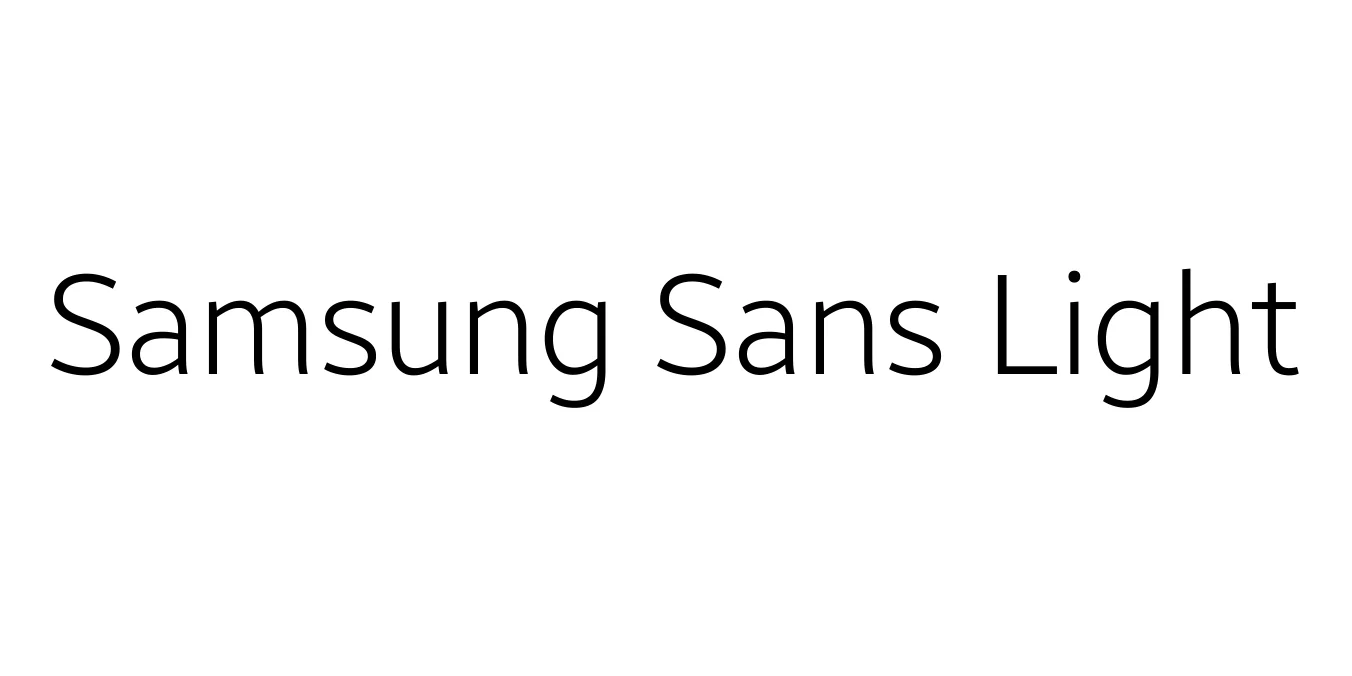
Samsung Sans Light
Designed by Samsung Design & Dalton Maag
Samsung Sans Light is a contemporary sans-serif typeface developed by Samsung in collaboration with the renowned type foundry Dalton Maag. Originally designed to create a cohesive brand identity across the Galaxy ecosystem, this light weight offers a refined, airy aesthetic that prioritizes clarity and modern elegance. It serves as a cornerstone of Samsung's visual communication, bridging the gap between hardware and software through its clean, geometric proportions.
The typeface is specifically optimized for high-resolution digital displays, featuring open apertures and a generous x-height that maintain legibility even at smaller point sizes. While its primary function is for user interface (UI) and user experience (UX) design, its minimalist structure makes it highly versatile for corporate branding, digital advertising, and editorial layouts that require a sophisticated, tech-forward appearance.
Samsung Sans Light Best Uses
Optimized for readability on smartphone screens and application interfaces.
Perfect for minimalist headers and clean, modern website layouts.
Ideal for tech-focused corporate identities and logo design.
Excellent for high-clarity advertising banners and social media graphics.